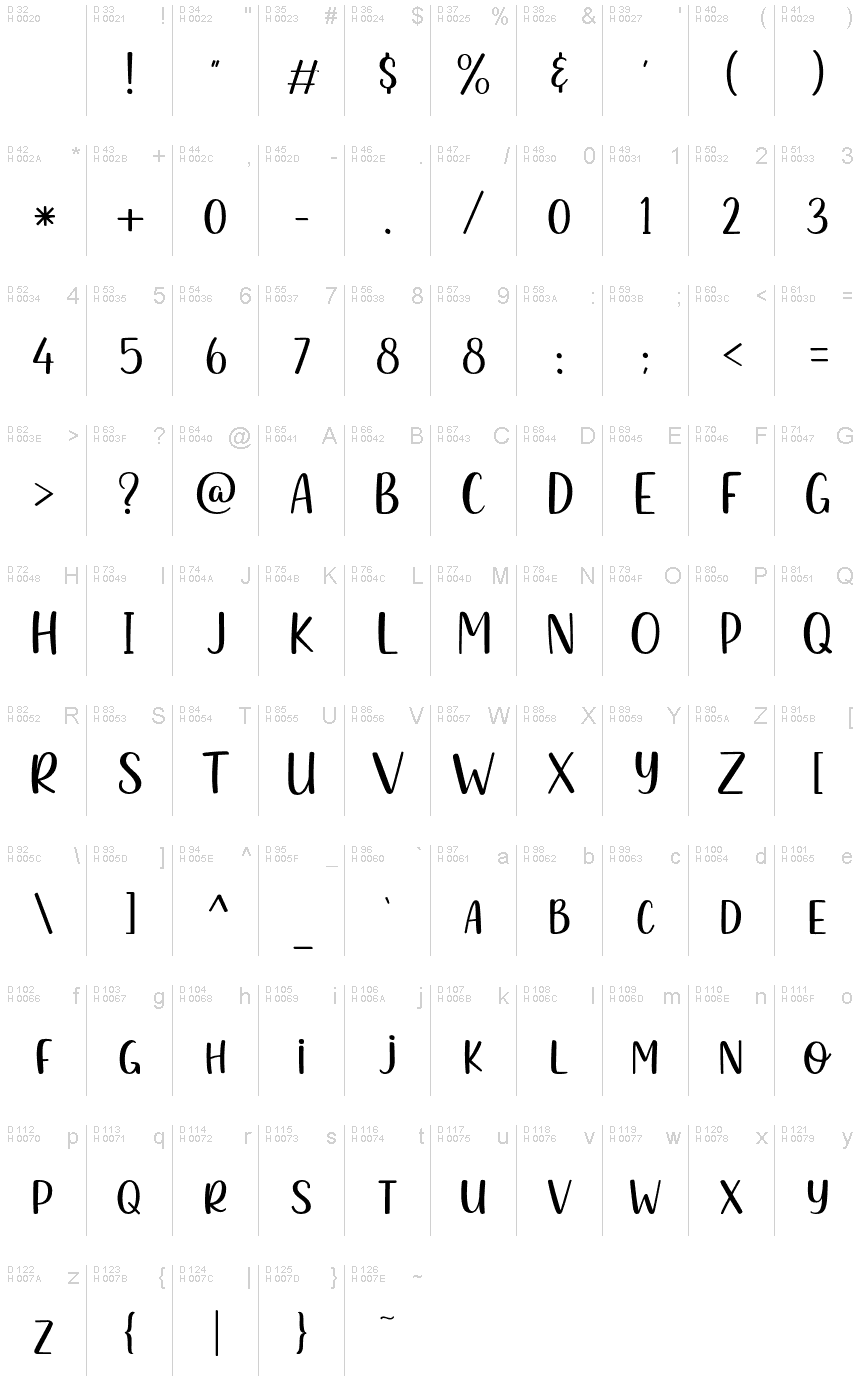
BeautyandElegantSans
Beauty and Elegant Sans, a stunning handwritten font designed by Letterflow, is perfect for projects that require a touch of sophistication. Its semi-light weight and semi-condensed width create an airy, elegant feel that is perfect for wedding invitations, fashion magazines, and luxury branding. The flowing curves of this typeface add a personal touch to any project while still maintaining a professional look. Use Beauty and Elegant Sans to add an extra layer of charm to your next design project.
Beauty and Elegant Sans